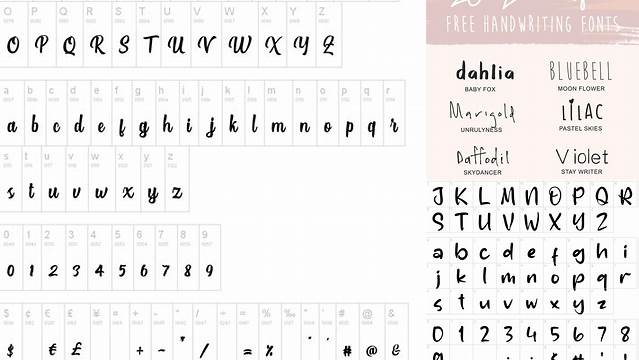
Handwriting Font Generator: Free Downloads & Creation Tips
Hey guys! Ever wanted to add a personal touch to your digital projects? A handwriting font generator free download is the perfect tool! Imagine turning your own handwriting, or a style you love, into a font you can use everywhere. This article will dive deep into the world of handwriting font generators, exploring how they work, where to find them, and how to use them effectively. Get ready to unleash your inner calligrapher!
Why Use a Handwriting Font Generator?
Using a handwriting font generator free download offers several unique advantages. First and foremost, it allows you to inject a personal and authentic feel into your digital communications. Imagine sending out invitations, creating marketing materials, or even designing a website with a font that looks like it was genuinely handwritten. This adds a level of warmth and authenticity that's hard to replicate with standard computer fonts.
Beyond the personal touch, handwriting fonts can also improve readability in certain contexts. For example, studies have shown that some people find handwritten notes more engaging and easier to remember than typed text. This can be particularly useful for educational materials, presentations, or any situation where you want to capture and hold someone's attention. Plus, let's be honest, they just look cool!
Another compelling reason to use a handwriting font generator free download is the sheer convenience and cost-effectiveness. Instead of paying a professional designer to create a custom font, you can easily create one yourself in a matter of minutes. There are many free online tools available that make the process simple and straightforward, even for those with no prior experience in font design. This accessibility democratizes the world of typography and empowers individuals to express their unique style without breaking the bank.
Furthermore, using a handwriting font generator free download provides you with complete control over the final product. You can tweak and refine every aspect of the font, from the thickness of the strokes to the spacing between letters. This level of customization allows you to create a font that perfectly matches your vision and complements your overall design aesthetic. Whether you're aiming for a playful and whimsical look or a more elegant and sophisticated style, a handwriting font generator gives you the tools to achieve your desired outcome.
1. Free Online Handwriting Font Generators
Finding a handwriting font generator free download online is easier than you might think. A simple Google search will reveal a plethora of options, each with its own unique features and interface. Some popular choices include Calligraphr, FontStruct, and MyScriptFont. These platforms typically offer a user-friendly experience, allowing you to create a handwriting font without any specialized knowledge of font design. Often, you can even upload a scanned image of your own handwriting, and the generator will convert it into a usable font file. How cool is that? You can customize various aspects like stroke thickness and letter spacing. This makes it super easy to get a font that truly represents you.
2. Handwriting Font Apps for Mobile Devices
For those who prefer creating on the go, handwriting font generator free download apps for mobile devices are a fantastic option. Apps like iFontMaker (iOS) and YourFonts (Android) allow you to create fonts directly on your smartphone or tablet. This is particularly useful for capturing spontaneous handwriting samples or sketching out unique letterforms. These apps often feature intuitive drawing tools and real-time previews, making the font creation process fun and engaging. Also, it’s quite handy to whip out your phone and create a quick font while waiting in line or during your commute!
3. Converting Your Own Handwriting to a Font
The most authentic way to get a handwriting font is by converting your own writing. Many online generators and apps offer this feature. You'll usually need to write out each letter, number, and symbol on a template (either a physical printout or a digital one). Then, you scan or photograph the template and upload it to the generator. The software analyzes your handwriting and creates a font file that you can download and install on your computer. Just imagine, your actual handwriting as a font – that's pretty awesome, right?
4. Best Free Handwriting Fonts to Download
If you don't want to create your own font from scratch, there are tons of amazing free handwriting fonts available for download. Sites like DaFont, FontSpace, and Google Fonts offer a vast collection of handwritten styles, ranging from elegant calligraphy to playful doodles. These fonts are typically free for personal use, and some are even available for commercial projects. It’s a great way to add that personal touch without spending hours on font creation. Plus, you can always find something that suits your specific project, from wedding invitations to blog headers!
5. Handwriting Font Generator for Cricut
Crafters, listen up! A handwriting font generator free download can be a game-changer for your Cricut projects. Imagine personalizing cards, labels, and other creations with a font that looks genuinely handwritten. Simply create or download a handwriting font, install it on your computer, and then import it into Cricut Design Space. From there, you can use the font to create custom text designs that will add a unique and heartfelt touch to your crafts.
6. Handwriting Font Generator for Procreate
Digital artists and illustrators using Procreate can also benefit greatly from handwriting fonts. Whether you want to add hand-lettered titles to your artwork or create realistic handwritten notes within your illustrations, a handwriting font generator free download can streamline your workflow. You can either import a pre-made handwriting font into Procreate or create your own using a font creation app on your iPad.
7. Cursive Handwriting Font Generator Free
Looking for that classic cursive look? A cursive handwriting font generator free download is your answer. These generators specialize in creating fonts that mimic the flowing, connected strokes of cursive handwriting. This is perfect for adding a touch of elegance and sophistication to invitations, thank-you notes, and other formal communications. Just imagine how lovely your wedding invitations would look with a beautifully crafted cursive font!
8. Script Handwriting Font Generator Online
Similar to cursive fonts, script fonts also aim to replicate the fluidity and grace of handwriting. A script handwriting font generator free download online allows you to create fonts with varying degrees of flourish and embellishment. Some script fonts are more casual and playful, while others are more formal and refined. Explore different styles to find the perfect script font for your project.
9. How to Install a Handwriting Font
Once you've created or downloaded a handwriting font generator free download, you'll need to install it on your computer to use it in your favorite applications. The installation process is usually quite simple. On Windows, you typically right-click on the font file and select "Install." On macOS, you double-click the font file and then click the "Install Font" button. After installation, the font should appear in the font menu of programs like Microsoft Word, Adobe Photoshop, and Google Docs.
10. Handwriting Font Generator for Commercial Use
If you plan to use your handwriting font generator free download for commercial projects, be sure to check the font's license agreement. Some free fonts are only licensed for personal use, while others allow commercial use. If you need a font for commercial purposes and are unsure about the license, it's best to err on the side of caution and either purchase a commercial license or create your own font using a generator that allows commercial use.
11. Best Handwriting Font Generator for iPad
For iPad users, several handwriting font generators offer seamless integration with the device's touch interface. Apps like iFontMaker and Calligraphr have iPad versions that allow you to create and install fonts directly on your tablet. This is particularly convenient for artists and designers who prefer working on the iPad.
12. Handwriting Font Generator with Different Styles
The beauty of a handwriting font generator free download is the ability to create fonts with a wide range of styles. Whether you prefer a neat and legible print, a flowing cursive script, or a quirky and whimsical doodle, you can find a generator that allows you to customize the font to your liking. Experiment with different settings and parameters to achieve the perfect look for your project.
13. Realistic Handwriting Font Generator
For projects that require a truly authentic handwritten look, a realistic handwriting font generator free download is essential. These generators aim to replicate the subtle imperfections and variations that are characteristic of genuine handwriting. This can include variations in stroke thickness, letter spacing, and even the presence of slight tremors or inconsistencies. The result is a font that looks convincingly handwritten, adding a touch of warmth and personality to your designs.
14. Cool Handwriting Font Generator
Looking to add some flair to your designs? A cool handwriting font generator free download can help you create fonts that are anything but ordinary. These generators often feature unique stylistic options, such as slanted letters, exaggerated flourishes, and unusual letterforms. This is perfect for creating eye-catching headlines, logos, and other design elements that demand attention.
15. Elegant Handwriting Font Generator
For projects that call for sophistication and refinement, an elegant handwriting font generator free download is the perfect choice. These generators specialize in creating fonts that mimic the graceful strokes of traditional calligraphy. Think flowing curves, delicate serifs, and a sense of timeless beauty. This is ideal for wedding invitations, formal announcements, and other occasions where elegance is paramount.
16. Handwriting Font Generator for Word
Using a handwriting font in Microsoft Word can add a personal touch to your documents. Simply install the font on your computer and then select it from the font menu in Word. You can then use the font to create handwritten-style letters, resumes, and other documents.
17. Modern Handwriting Font Generator
If you're looking for a handwriting font that feels contemporary and fresh, a modern handwriting font generator free download is the way to go. These generators often feature clean lines, minimalist designs, and a subtle nod to traditional handwriting. This is perfect for creating designs that are both stylish and approachable.
18. Best Free Cursive Handwriting Fonts
For those seeking pre-made options, exploring the best free cursive handwriting fonts available online is a great start. Websites like DaFont and FontSpace offer a wide array of cursive fonts that you can download and use for personal or commercial projects (depending on the license).
19. Convert Handwriting to Text Generator
While this article focuses on font creation, it's worth mentioning convert handwriting to text generator tools. These tools use optical character recognition (OCR) to convert handwritten notes into editable text. While not directly related to font creation, they can be useful for digitizing handwritten content.
20. Cute Handwriting Font Generator
Need a font that's playful and endearing? A cute handwriting font generator free download allows you to create fonts with rounded letterforms, whimsical details, and a general sense of fun. This is perfect for children's books, greeting cards, and other projects that need a touch of sweetness.
21. Handwriting to Font Converter Software
Dedicated handwriting to font converter software often provides more advanced features and customization options compared to online generators. These programs may offer more precise control over letter spacing, kerning, and other typographic details.
22. Unique Handwriting Font Generator
Stand out from the crowd with a unique handwriting font generator free download. These generators encourage experimentation and creativity, allowing you to create fonts that are truly one-of-a-kind. Think unconventional letterforms, unexpected flourishes, and a bold disregard for traditional typographic conventions.
23. Handwriting Font for Logo Design
A handwriting font generator free download can be invaluable for logo design. A handwritten font can add a personal and memorable touch to your brand identity. However, it's crucial to choose a font that is legible and reflects your brand's personality.
24. Online Handwriting Font Maker
Think of the online handwriting font maker as your digital calligraphy studio. With a few clicks, you can bring your unique style to life and create fonts that truly represent your personality.
25. Handwriting Font Generator for T-Shirts
Create personalized t-shirts with a handwriting font generator free download. Add a handwritten message, a name, or a meaningful quote to your apparel for a truly unique and heartfelt gift or personal statement.
26. Simple Handwriting Font Generator
Sometimes, simplicity is key. A simple handwriting font generator free download allows you to create fonts that are clean, legible, and easy to read. This is perfect for projects where clarity is paramount.
27. Feminine Handwriting Font Generator
For designs that evoke grace and femininity, a feminine handwriting font generator free download is a great choice. These generators often create fonts with delicate curves, elegant flourishes, and a soft, approachable feel.
28. Masculine Handwriting Font Generator
On the other hand, a masculine handwriting font generator free download can create fonts that are bold, strong, and assertive. Think thick strokes, angular letterforms, and a sense of ruggedness.
29. Handwriting Font Generator for Instagram
Spice up your Instagram posts with a handwriting font generator free download. Use handwritten fonts in your captions, stories, and reels to add a personal and engaging touch to your content.
30. How to Choose the Right Handwriting Font
Choosing the right handwriting font generator free download depends on your specific needs and preferences. Consider the overall style and tone of your project, the intended audience, and the legibility of the font. Experiment with different generators and styles until you find the perfect match.
So, what are you waiting for? Dive into the world of handwriting font generators and start creating your own unique fonts today! Have fun with it, guys!